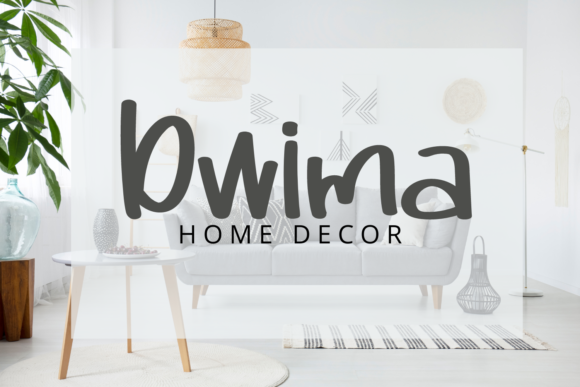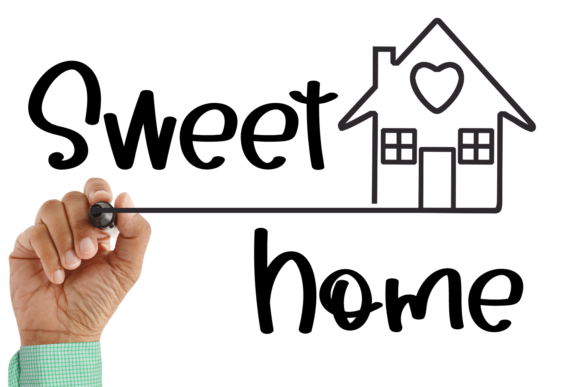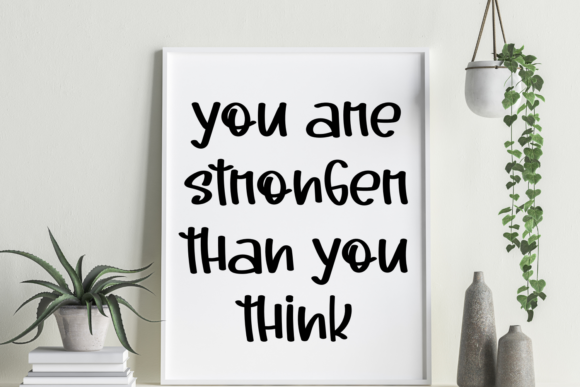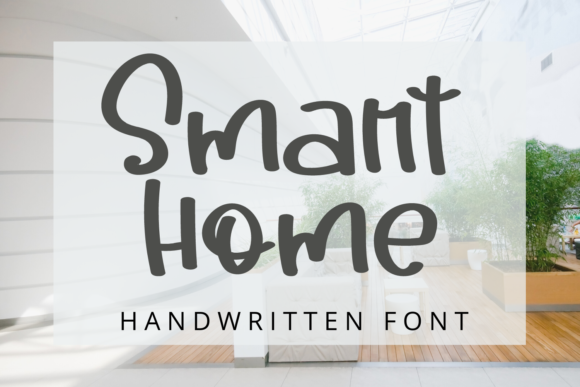
Introduction to Smart Home Font
Smart Home is a trendy and sweet handwritten font.
Quirky and neat, this font will elevate each of your casual designs .
Key Features of Smart Home Font
Why Choose Smart Home Font?
Smart Home Font offers exceptional quality and versatility, making it a valuable addition to your design toolkit. Whether you’re creating for personal projects or commercial use, Smart Home Font delivers professional results.